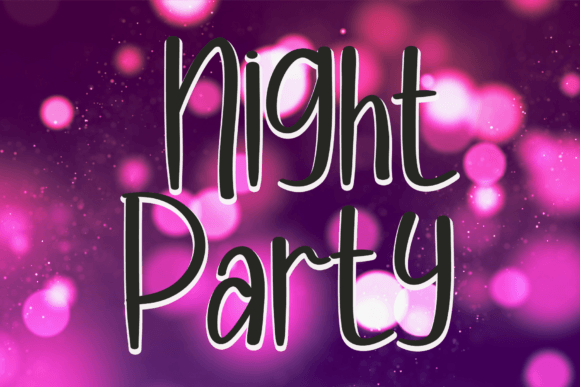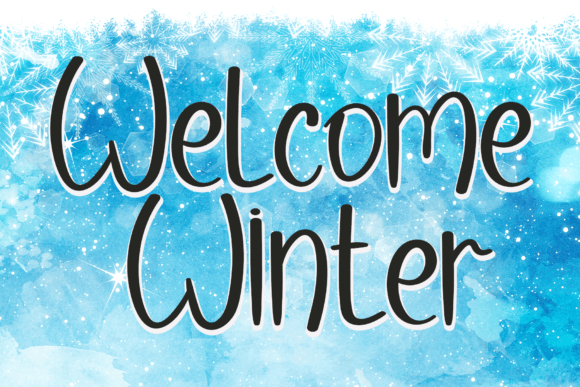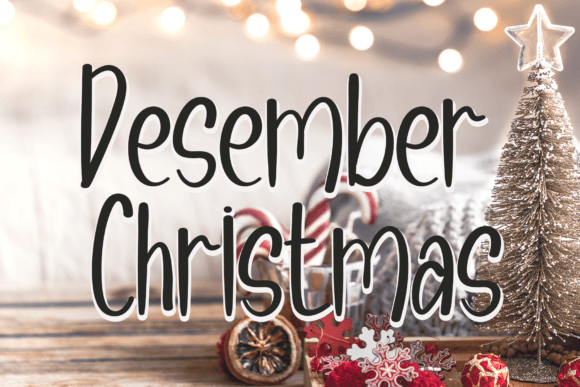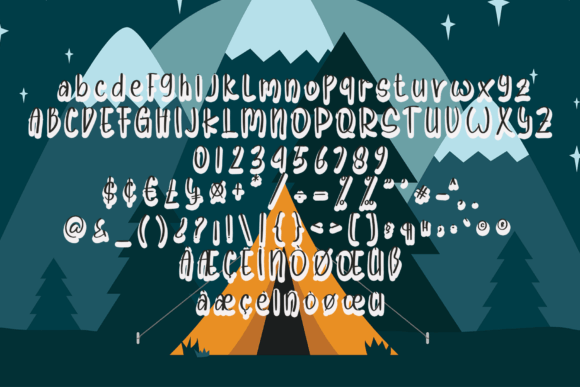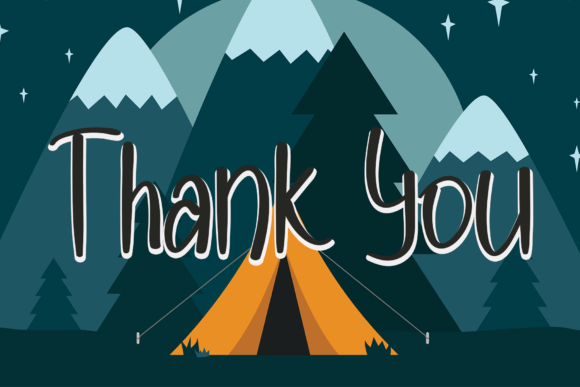
The Magic of Boho Christmas Font: A Designer’s Delight
Ah, the holiday season is upon us, and as designers, we’re often tasked with creating festive and fun projects that capture the spirit of Christmas. I recall a particularly stressful design moment when I was working on a client’s Christmas card project, and I just couldn’t find the right font to match their bohemian vibe. That’s when I stumbled upon the Boho Christmas font, and it instantly became my go-to for all things merry and bright!
What I Love About Boho Christmas Font ✨
• 💕 The sweet and friendly handwritten style is perfect for creating warm and fuzzy designs
• 🎉 It’s incredibly versatile and can be used for wedding invitations, cards, and more
• 👍 The font is easy to read, even in smaller sizes
• 💫 It comes with a range of OpenType features, glyphs, and stylistic alternates to give your designs an extra boost
While Boho Christmas font is an amazing addition to any designer’s toolkit, there are a few things to keep in mind:
• 🤔 Some of the more intricate swashes and flourishes might not display properly in certain software or platforms
• ⚠️ The font might not be suitable for very formal or traditional designs, as it has a distinctly playful and bohemian feel
The Story Behind Boho Christmas Font: A Designer’s Inspiration
While the exact story behind Boho Christmas font is a mystery, it’s clear that the designer was inspired by the carefree, bohemian spirit of the holiday season. Imagine a winter wonderland filled with twinkling lights, cozy firesides, and joyful celebrations – that’s the vibe that Boho Christmas font embodies.
Q: What makes Boho Christmas font so special?
A: Boho Christmas font is special because of its unique blend of playfulness, elegance, and whimsy. It’s the perfect combination of bohemian charm and holiday cheer!
Q: Is Boho Christmas font easy to read?
A: Yes, Boho Christmas font is surprisingly easy to read, even in smaller sizes. This makes it perfect for designs that need to convey a message, like holiday cards or invitations.
Q: Can I use Boho Christmas font with other fonts?
A: Of course! Boho Christmas font pairs well with a range of fonts, from simple sans-serifs to elegant scripts. Experiment with different combinations to find the perfect look for your design.